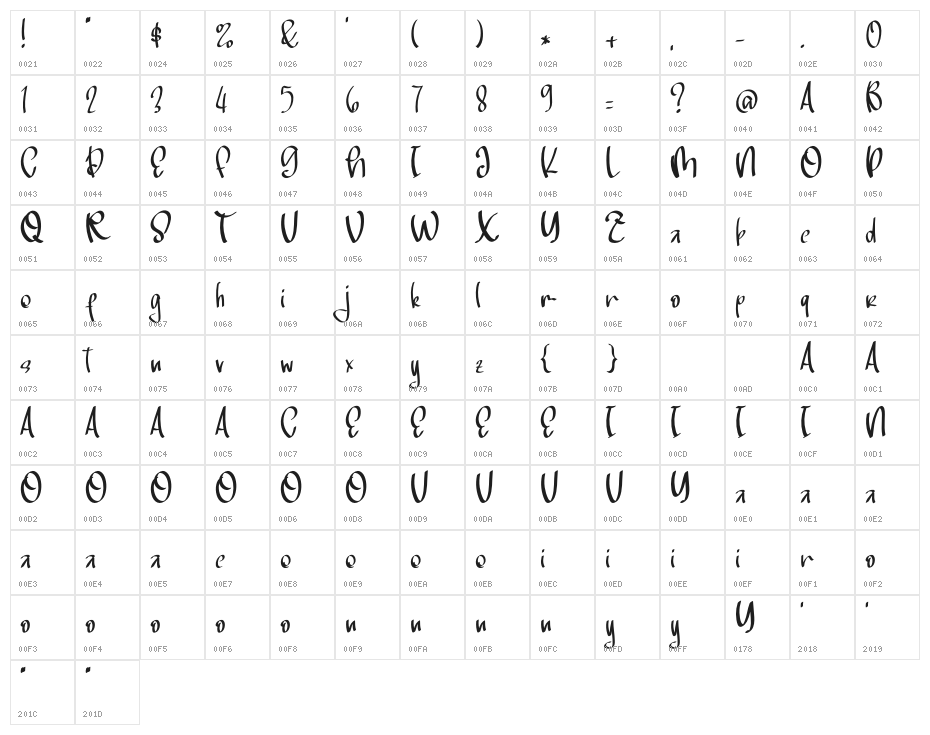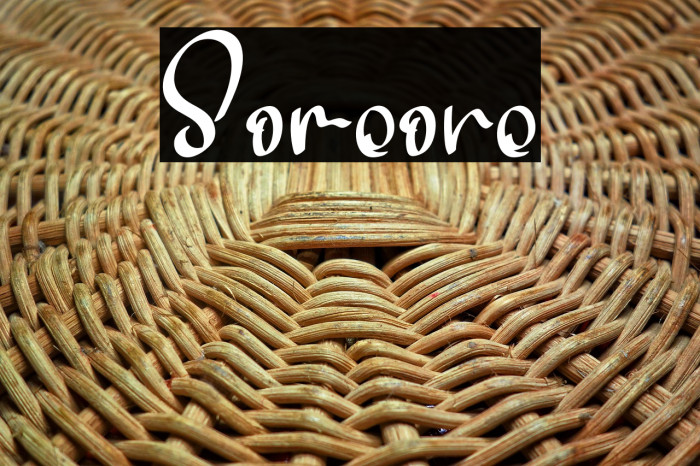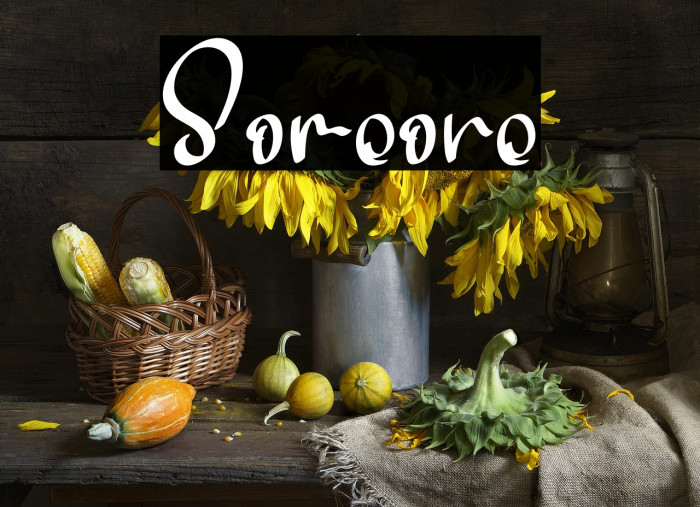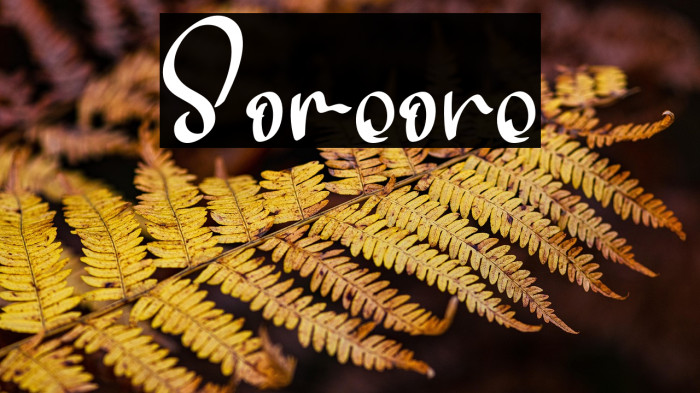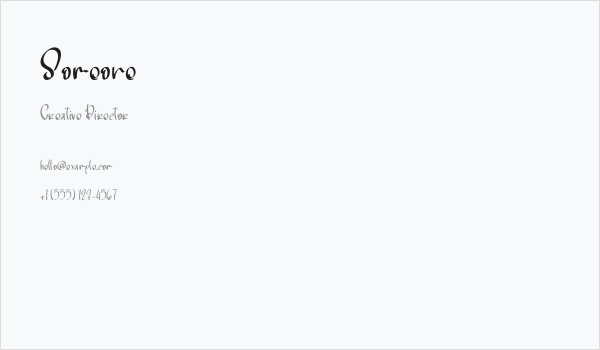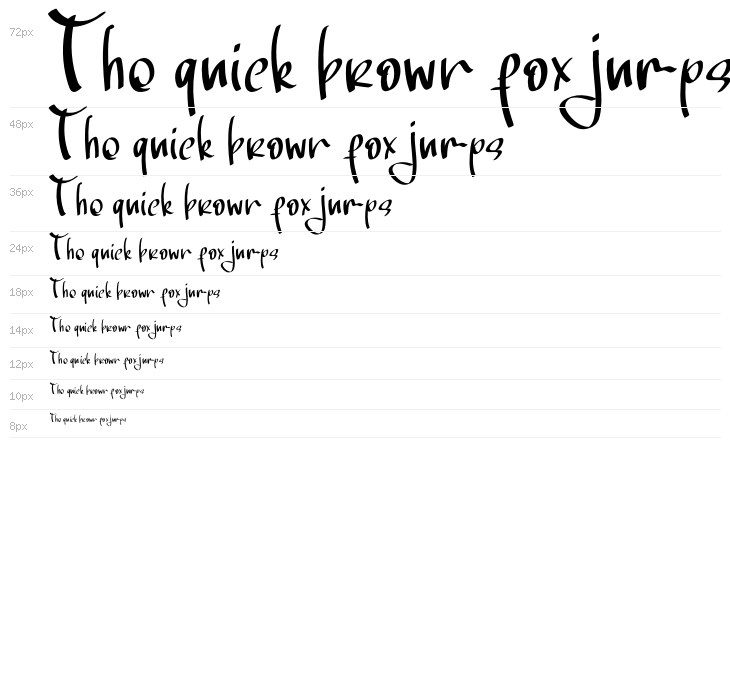
Someone Font
Someone Description
This font features a playful and artistic script style, characterized by its fluid and dynamic strokes. The uppercase letters exhibit a bold and expressive flair, with varying stroke widths that add a sense of movement and energy. The lowercase letters maintain a consistent style, with some letters featuring unique loops and curves that enhance the font's whimsical nature. The numerals are designed to match the overall aesthetic, with a slightly exaggerated form that complements the letters. Special characters are included, maintaining the same lively and creative style. This font is ideal for projects that require a touch of elegance and creativity, such as invitations, greeting cards, and artistic branding.